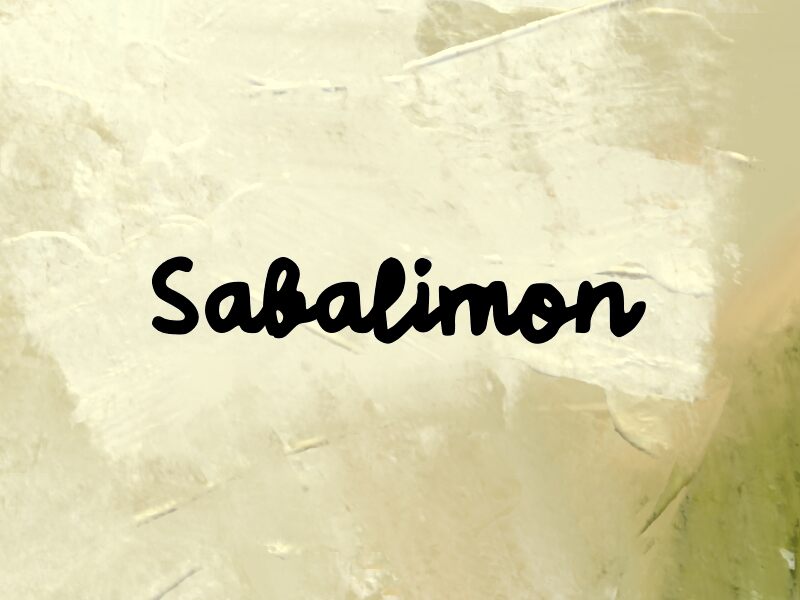
Sabalimon
Sabalimon font by wepfont.com is a free handwritten script typeface that hits a rare sweet spot between bold personality and clean readability. Its inky, rounded strokes feel like they were drawn with a thick marker, giving every word a warm, friendly weight without collapsing into a blur. The letters connect smoothly, with just enough looseness in the rhythm to feel human, not messy, so you can push it large or keep it modest and still read every curve at a glance.
Using Sabalimon, this free font shines on logo wordmarks, playful packaging, quote graphics, social media posts, children’s book covers, and handmade-style labels. It brings an upbeat, personal voice to anything that needs to feel cheerful and approachable rather than stiff or corporate. Pair Sabalimon with a simple, light sans serif for body text, and let this bold script handle the headlines and hero phrases.